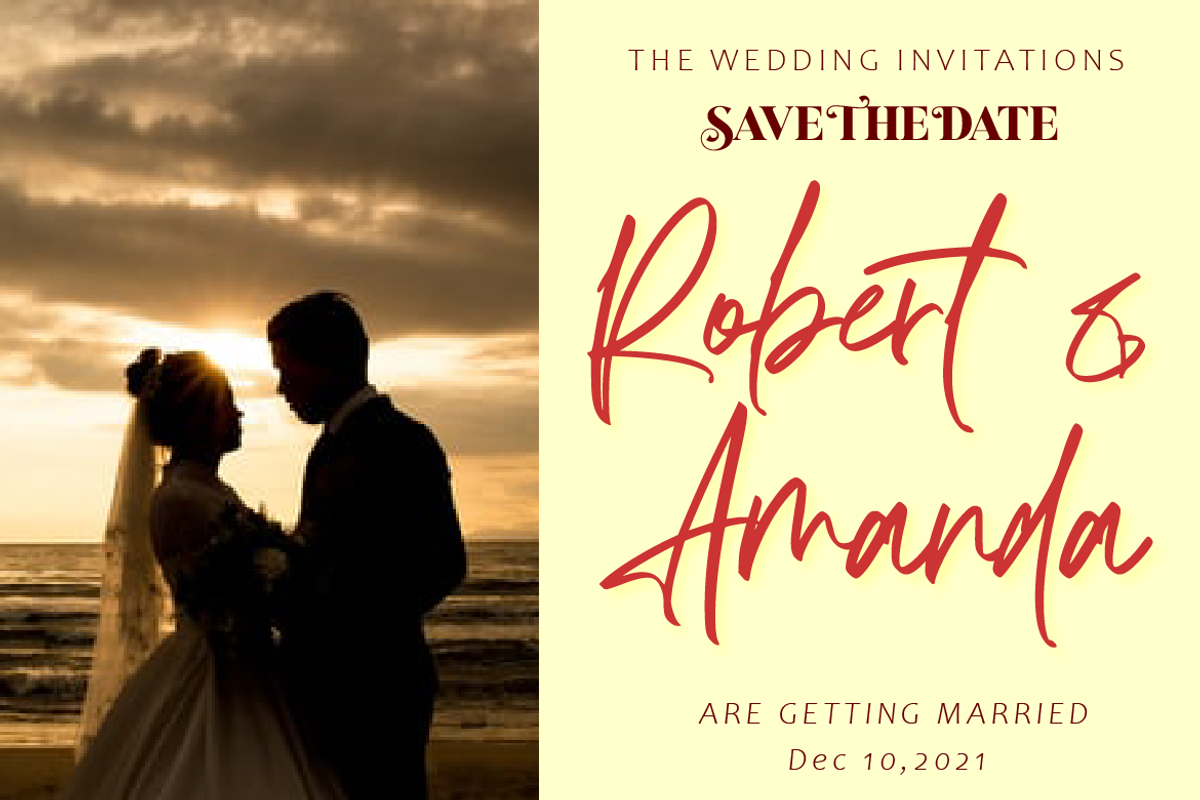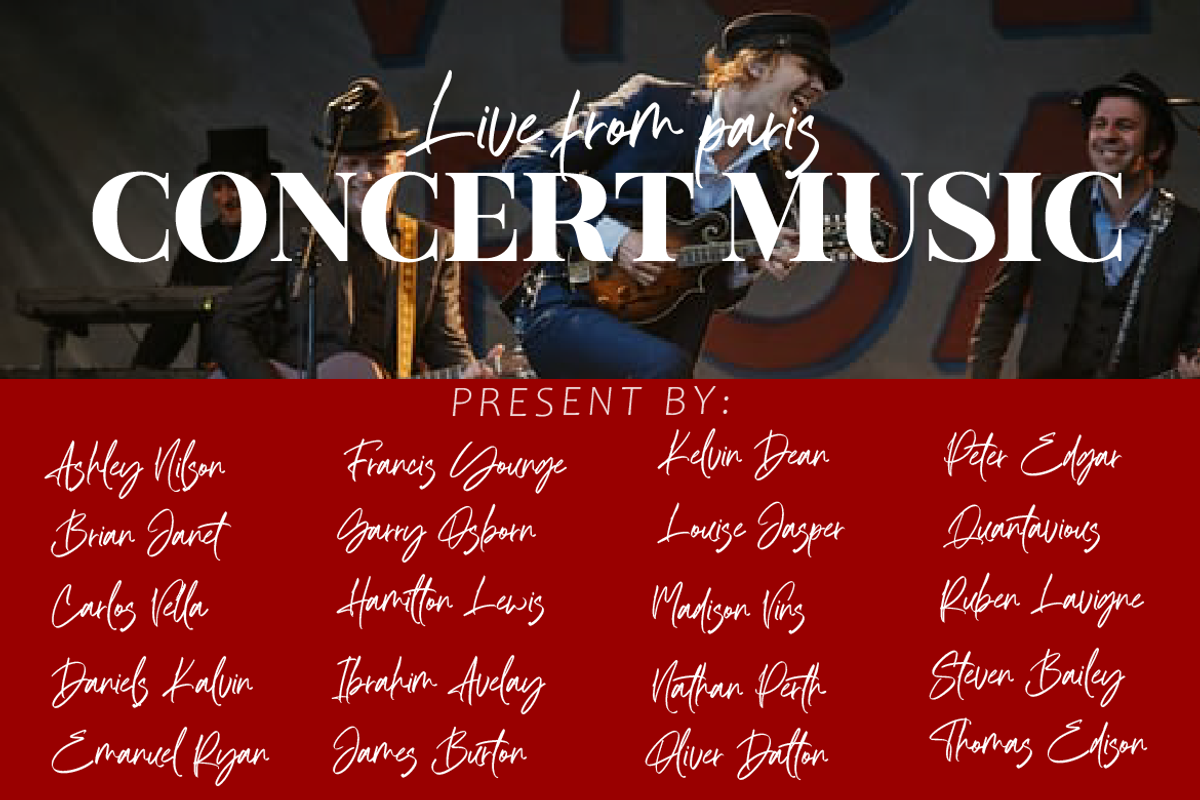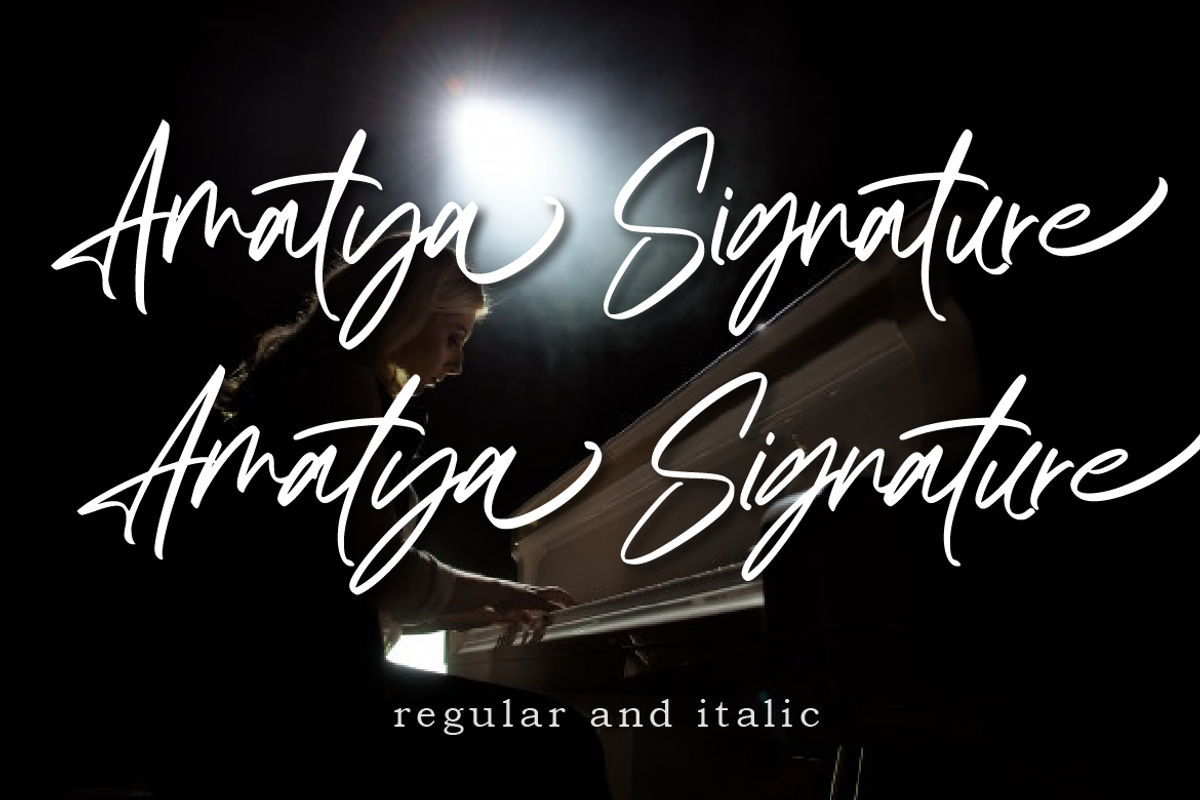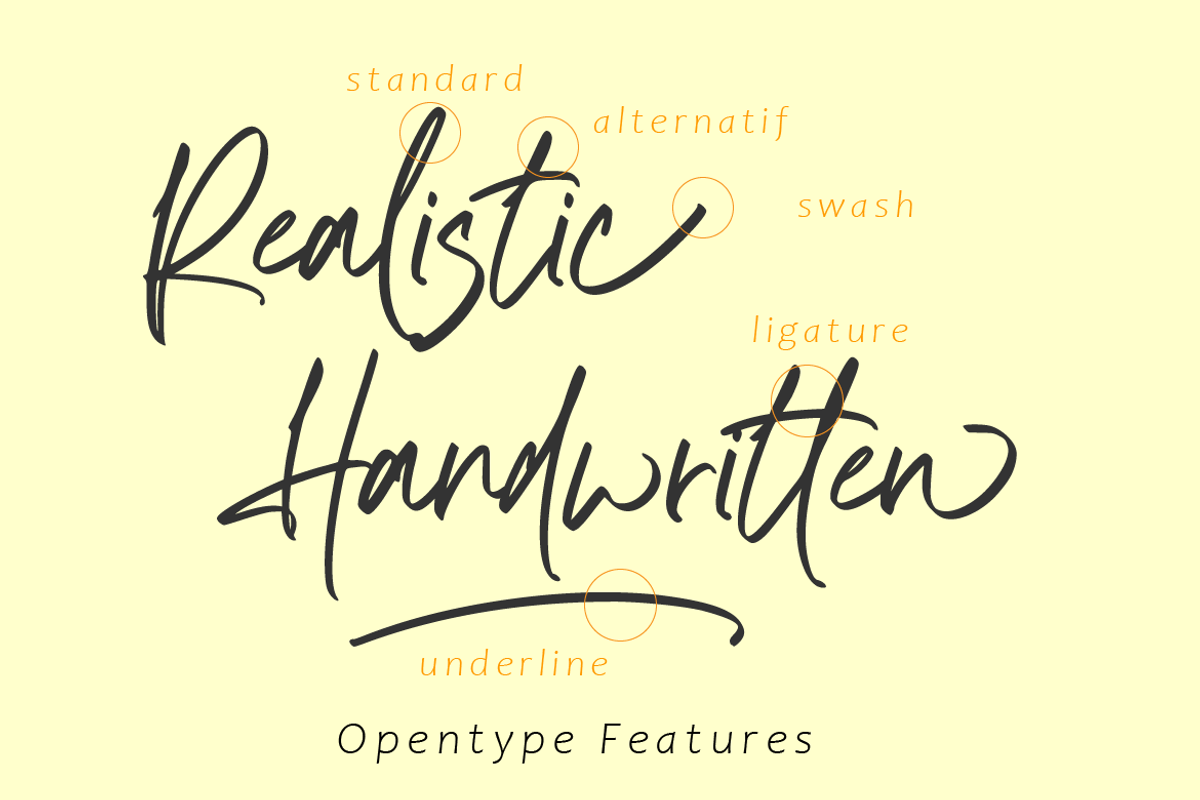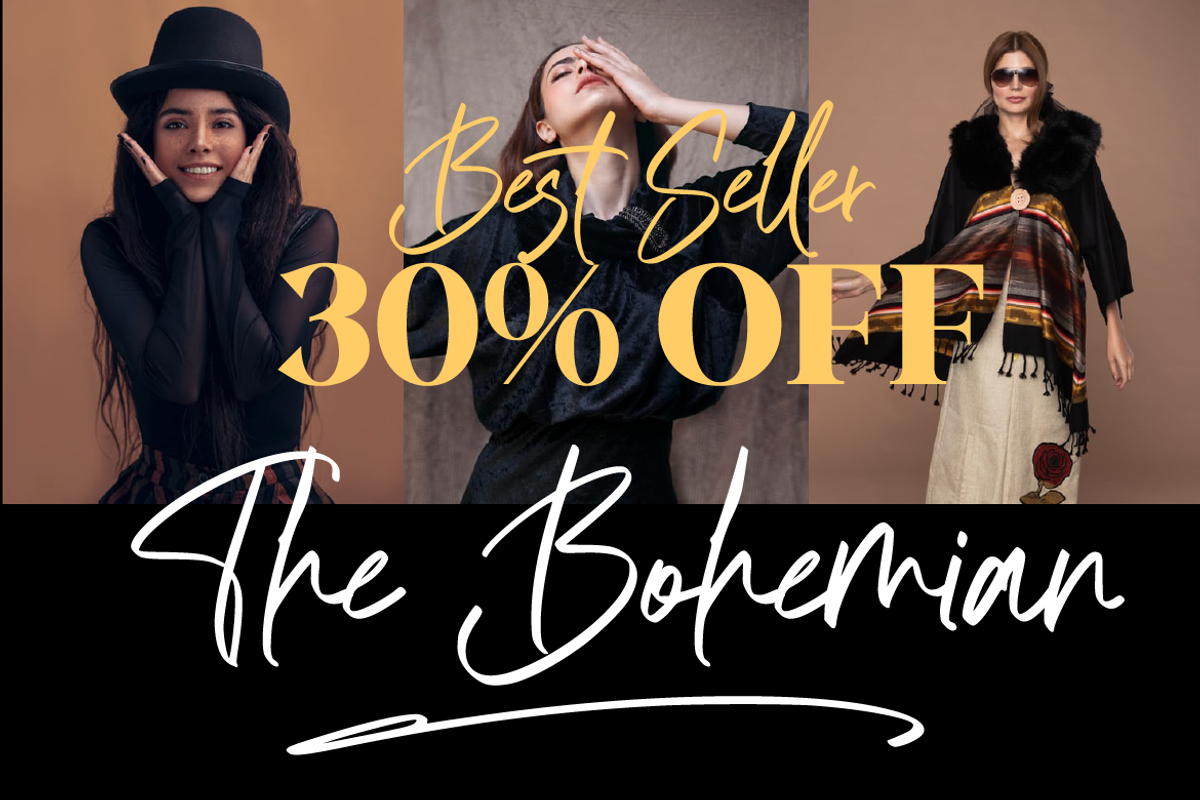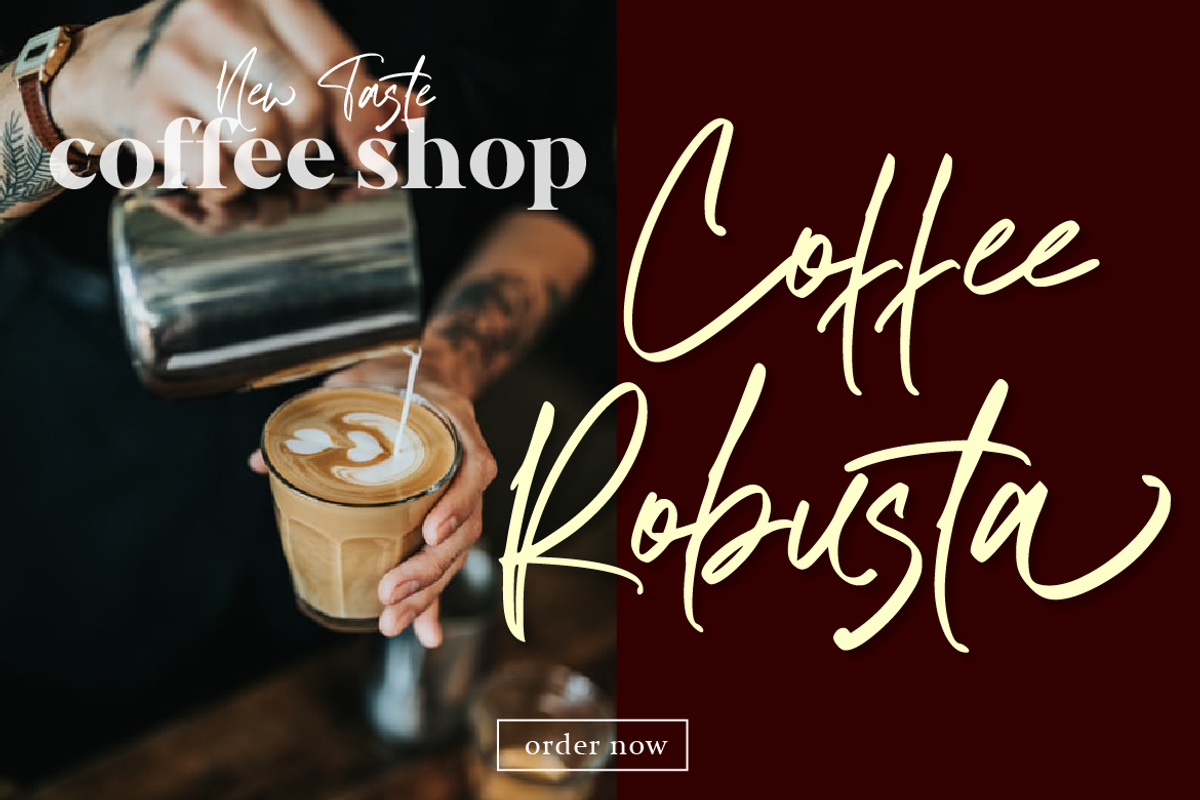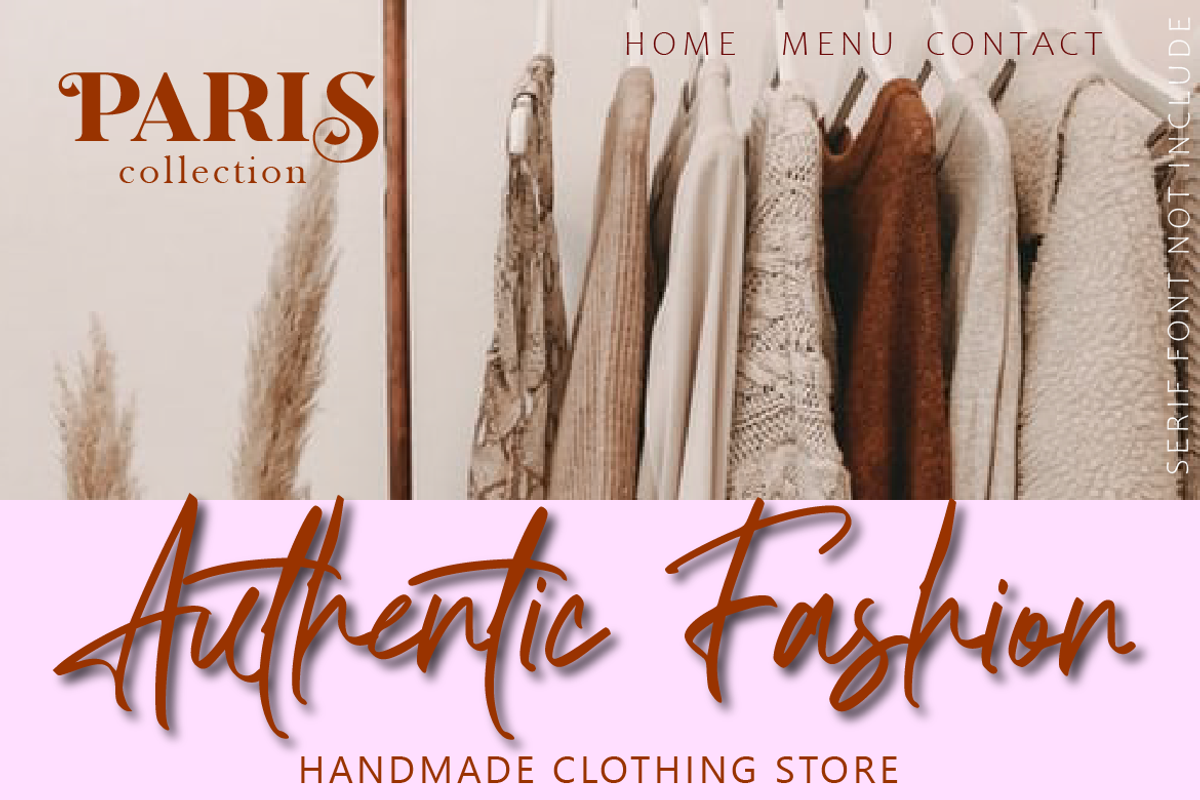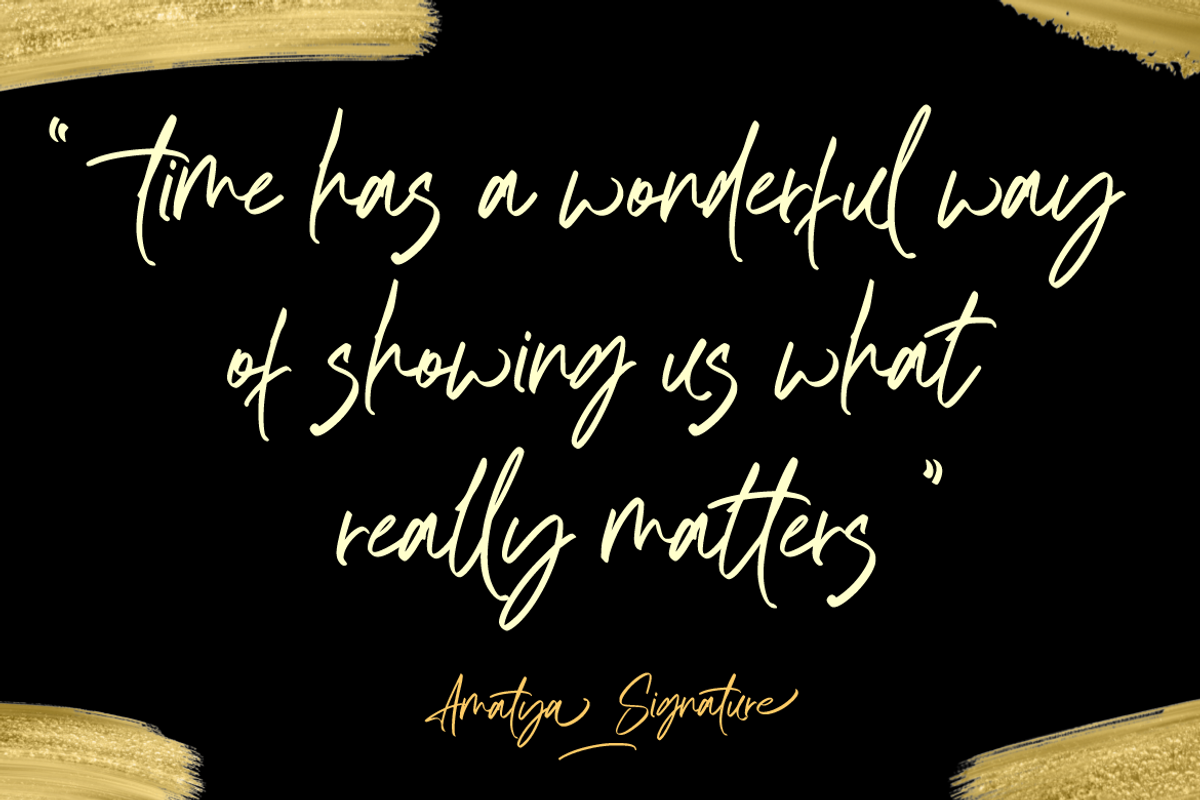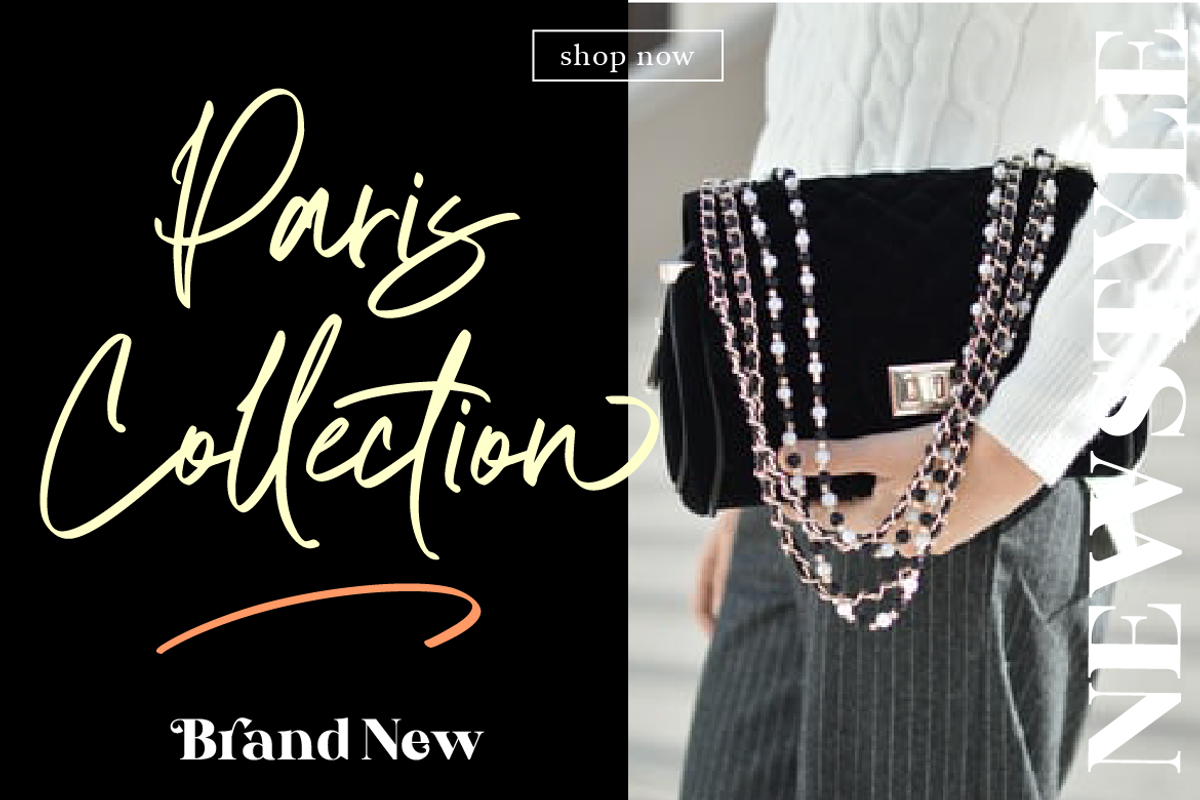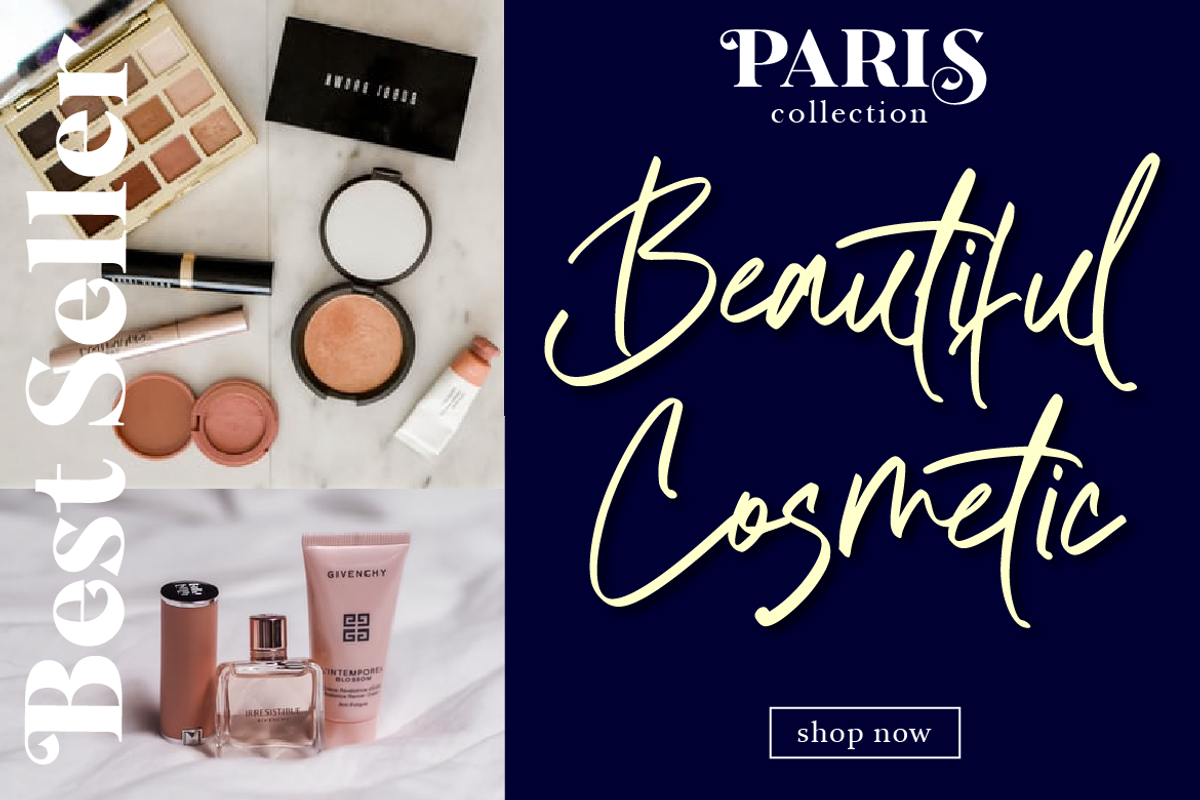
Amatya Signature
Introducing
Amatya Signature
This font was created to look as close to a natural handwritten script as possible by including alternates lowercase, swash lowercase, ligature and underlines. Built in Opentype features, this script comes to life as if you were writing it yourself.
Comes with regular and italic. Also support multilingual.Perfect for any awesome projects that need hand writing taste. This is suitable for branding, quotes, invitations, stationery, wedding design, logos, watermarks on photography, signatures, advertisement, album covers, business cards, clothing, magazines, posters, and more!